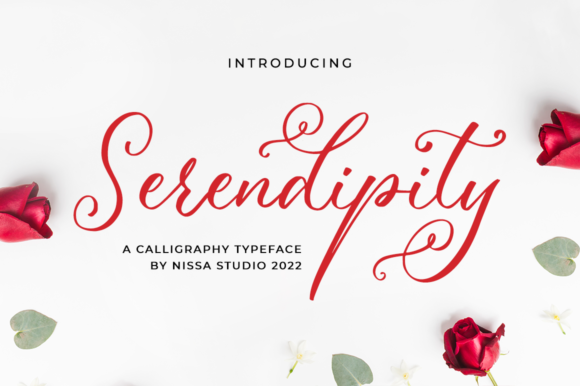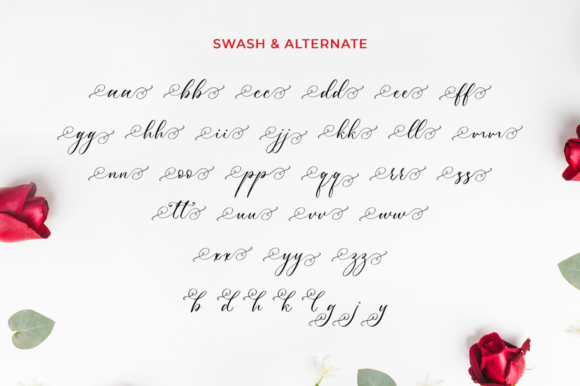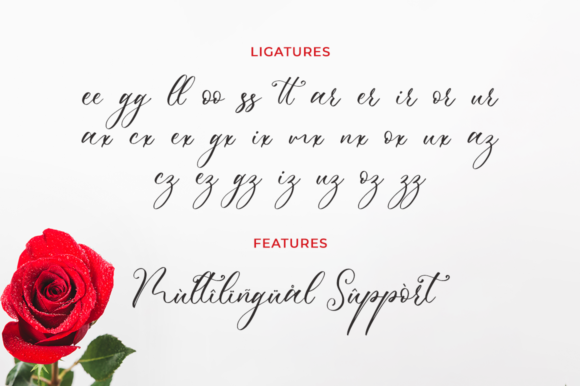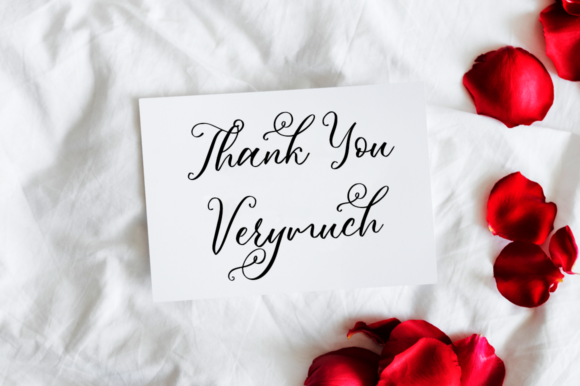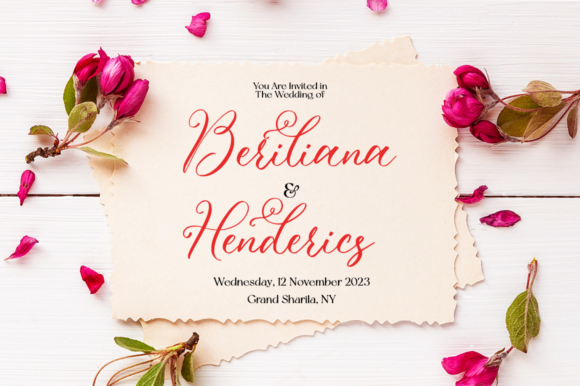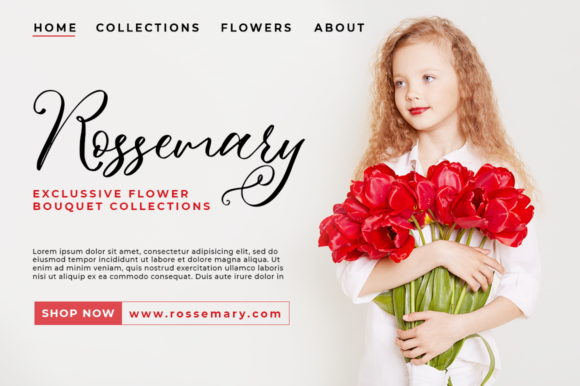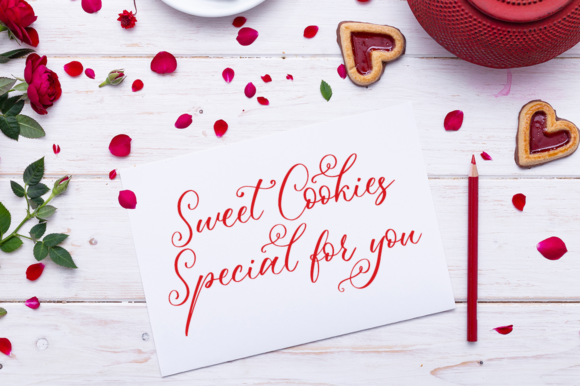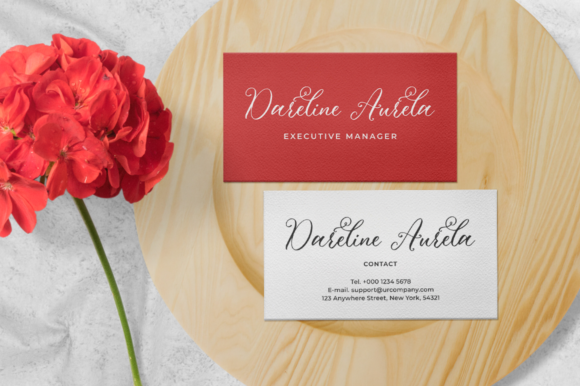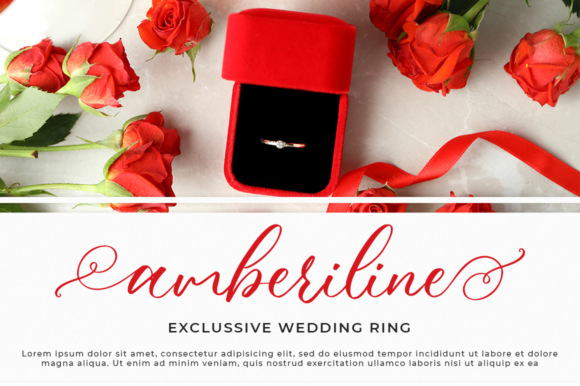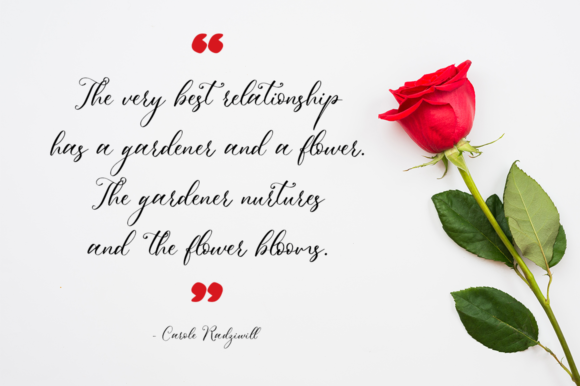
Serendipity Font
**Serendipity Font: Lovely Elegance and Delicate Charm**
Introducing *Serendipity Font*, a lovely and delicate script font that radiates elegance and class. Meticulously crafted, this font is a perfect choice for those seeking a beautiful and refreshing look for their designs. With its PUA encoding, accessing all the glyphs and swashes is a seamless experience, offering you a wide range of design possibilities.
The charm of *Serendipity* lies in its graceful and delicate script. Every stroke is carefully designed to exude a sense of elegance, making it an ideal font for projects where sophistication is key. Whether you’re working on invitations, branding, or any design that requires a touch of loveliness, *Serendipity* brings a refreshing and refined aesthetic.
This font is more than just letters on a page; it’s a visual experience that elevates your designs. The delicate charm of *Serendipity* adds a unique character to your text, making it stand out with a timeless elegance. Whether used for formal occasions or more relaxed settings, this font adapts seamlessly to various design needs.
The PUA encoding of *Serendipity* enhances the user experience by providing easy access to a plethora of glyphs and swashes. This feature allows you to explore and incorporate unique elements into your designs effortlessly, making customization a breeze.
In summary, *Serendipity Font* is a beautiful and refreshing addition to your design toolkit, offering a lovely elegance and delicate charm. Let it be the font that brings sophistication to your invitations, branding, and various creative projects. Embrace the timeless beauty of *Serendipity* and infuse your designs with a touch of loveliness that captivates and delights.